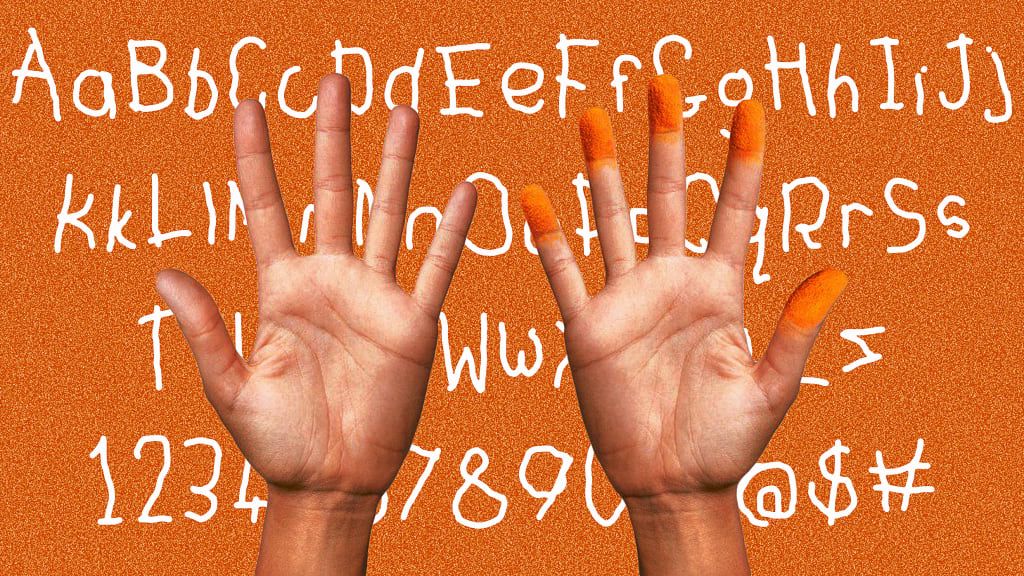
Cheetos just designed a terrible custom font on purpose
Rather than a font inspired by brand assets, the stunt font from Cheetos is inspired by brand experience.